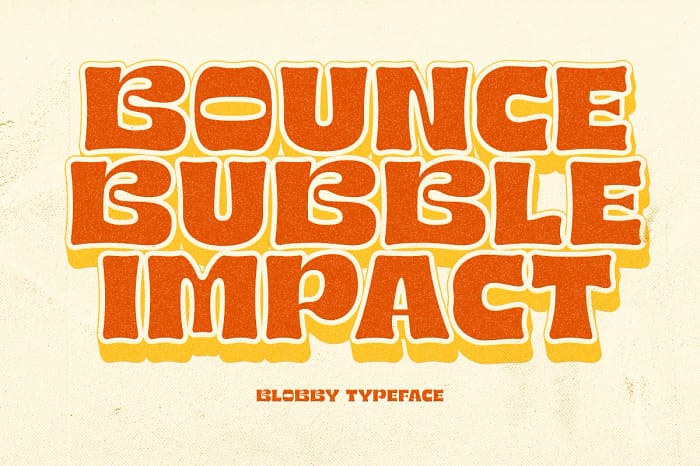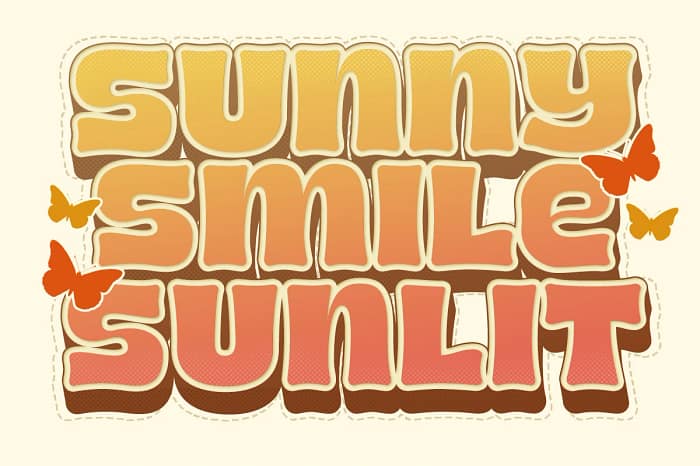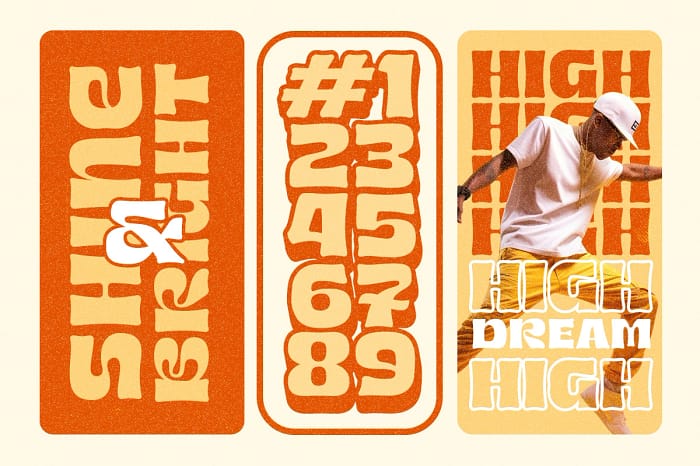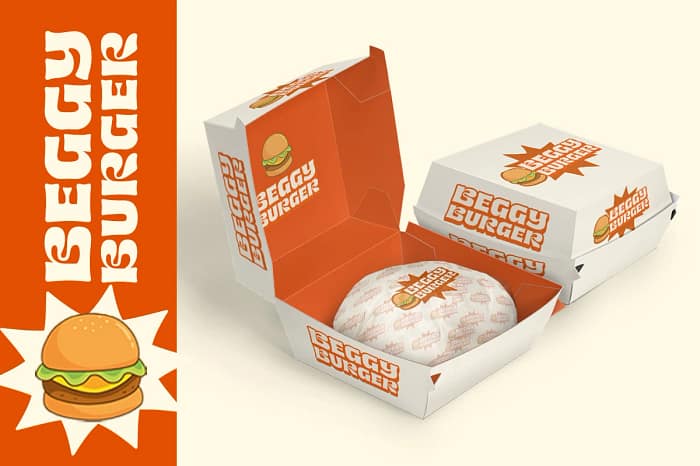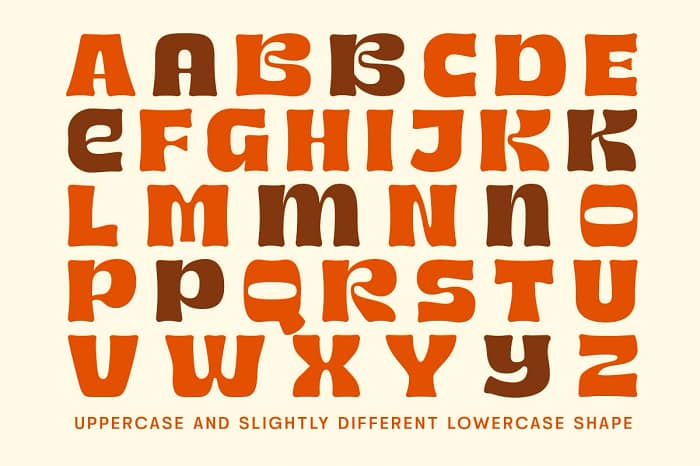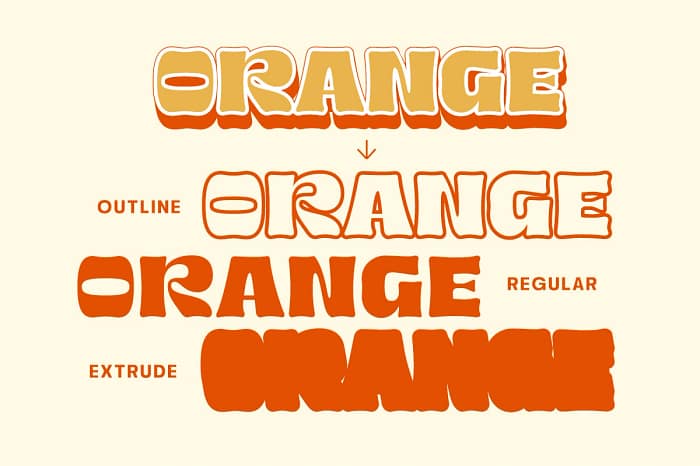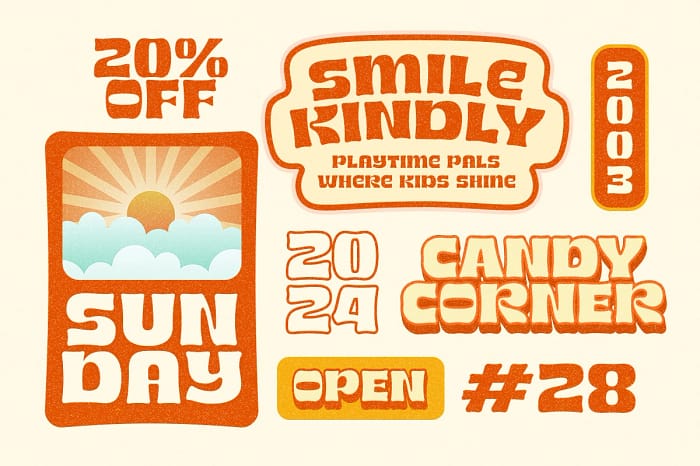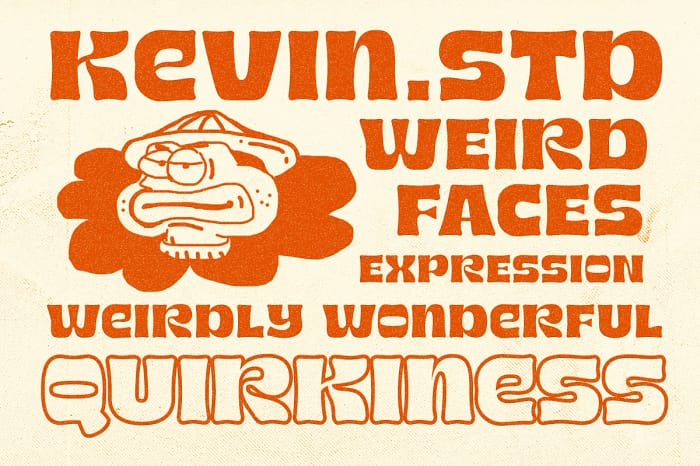
Blobby is a playful retro display font that brings a burst of fun and nostalgia to any design. With bold, curvy shapes and a whimsical style, Blobby captures the essence of classic 70s and 80s typography. Featuring versatile Extrude and Outline styles, this font is perfect for adding depth and dimension to posters, logos, packaging, and other creative projects. Make your designs stand out with Blobby’s unique retro flair and lively personality.